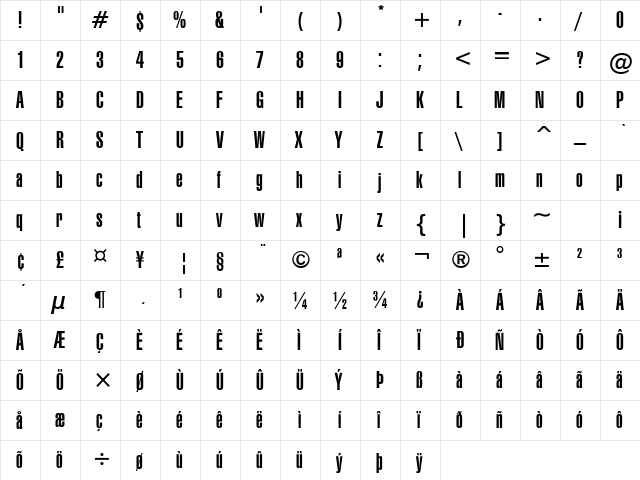
HalvettUltraCompressed Bold
Design Context for HalvettUltraCompressed Typeface
HalvettUltraCompressed offers clean, dependable letterforms without strong stylistic allegiance, making it a practical choice for designers who need flexibility. The heavy weight commands attention and anchors typographic hierarchies.